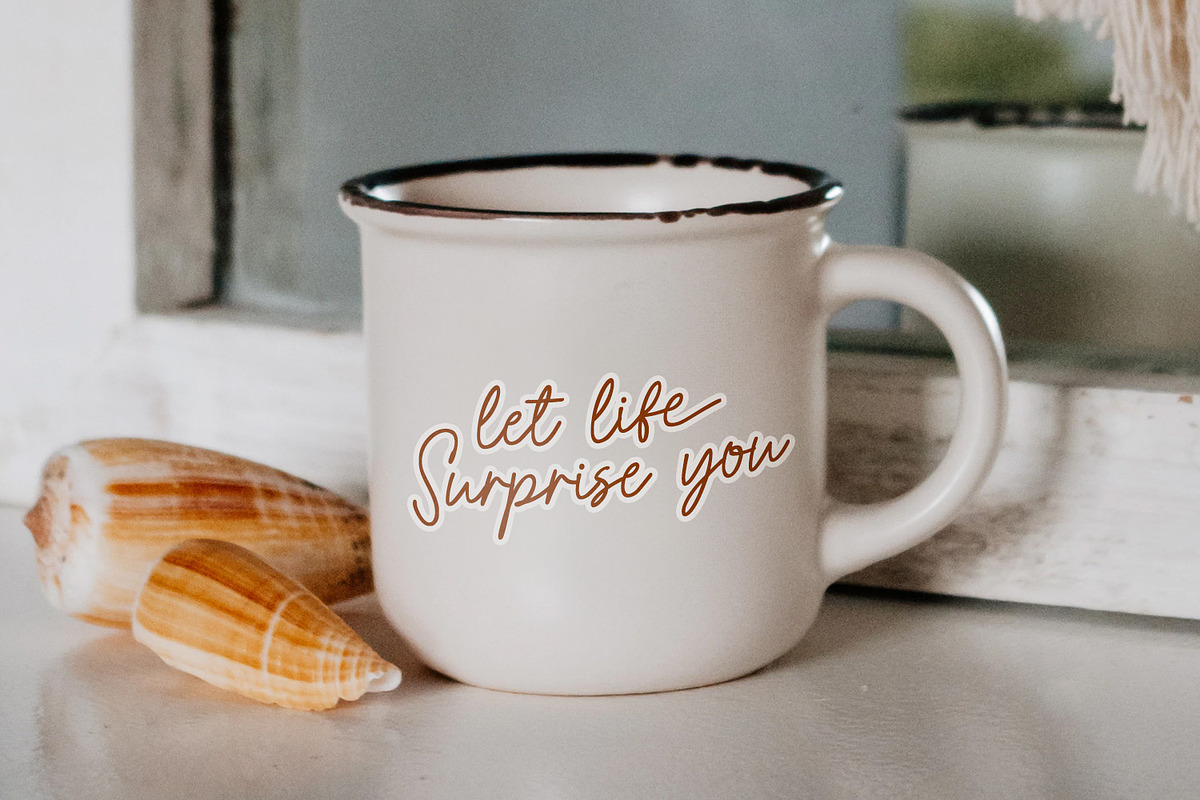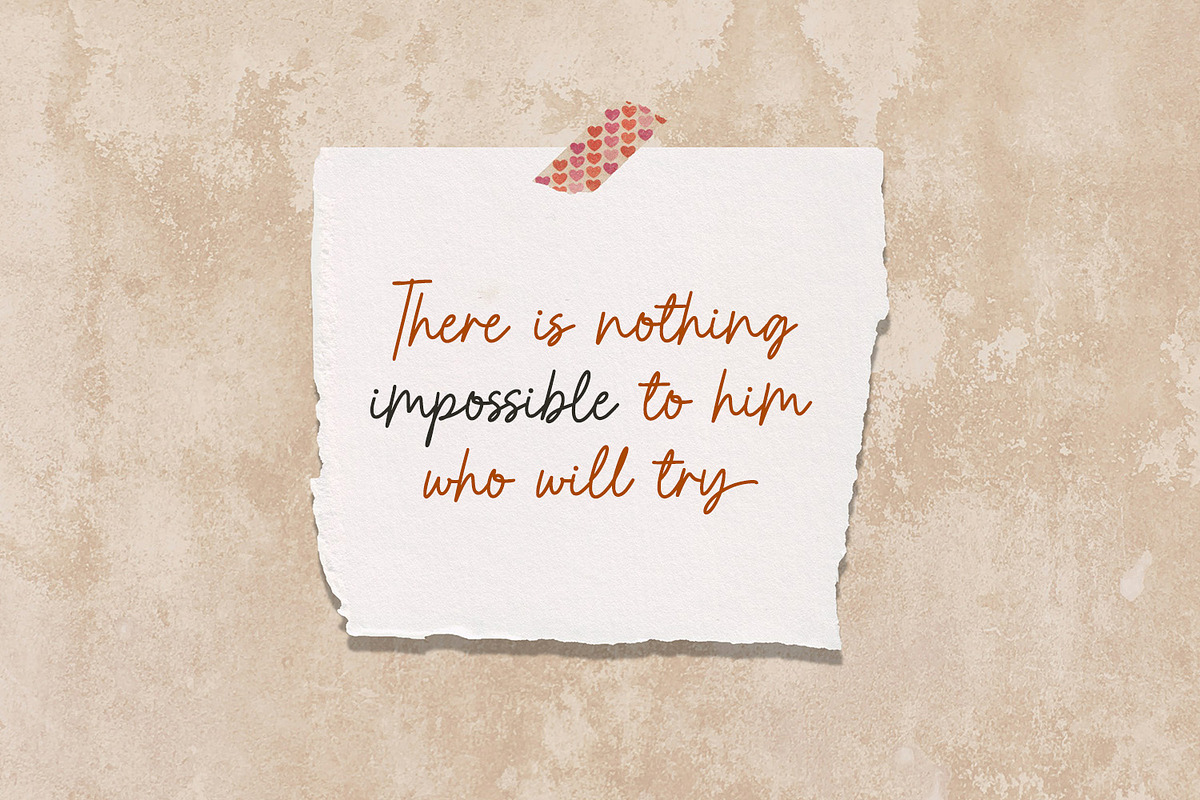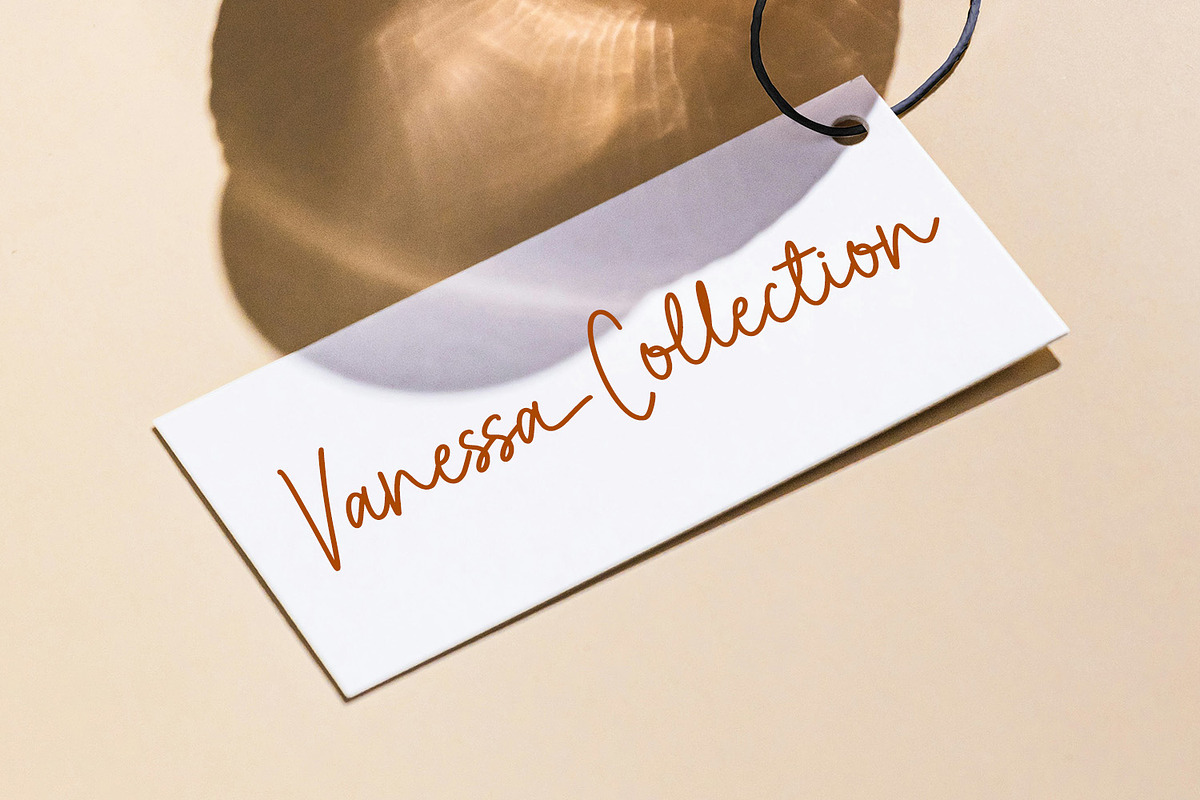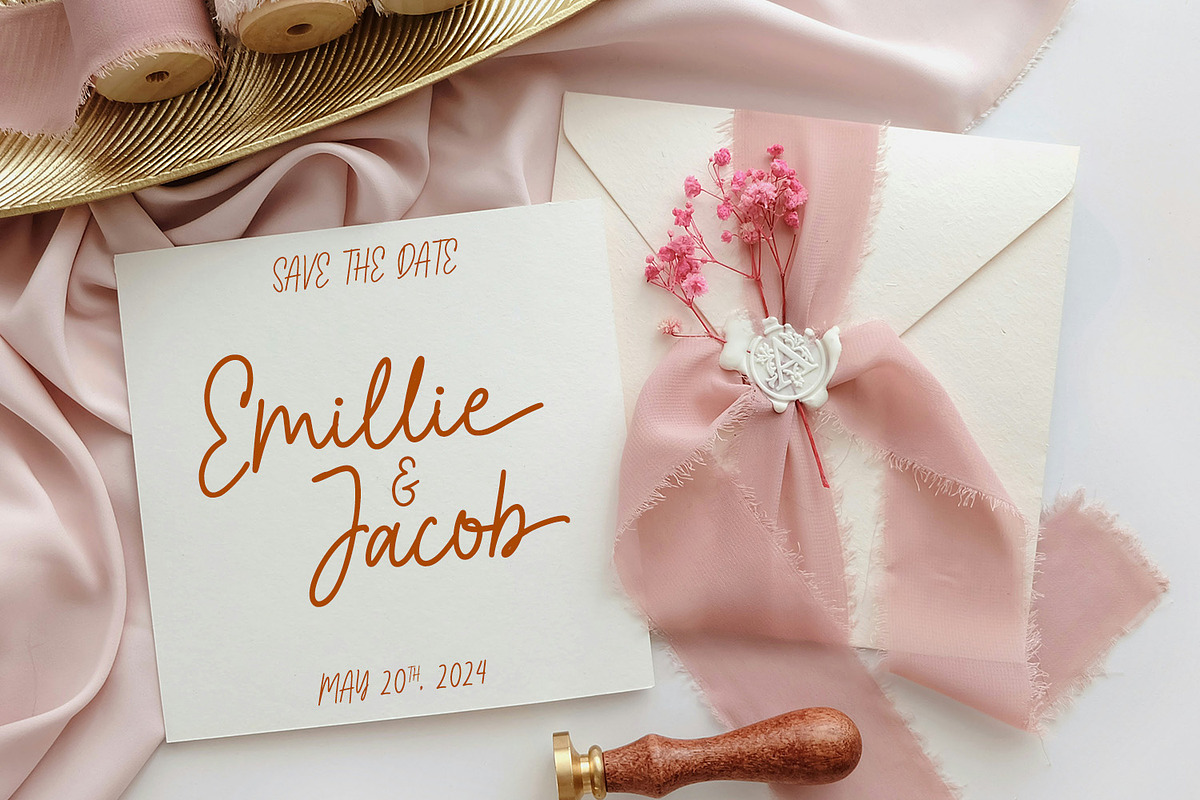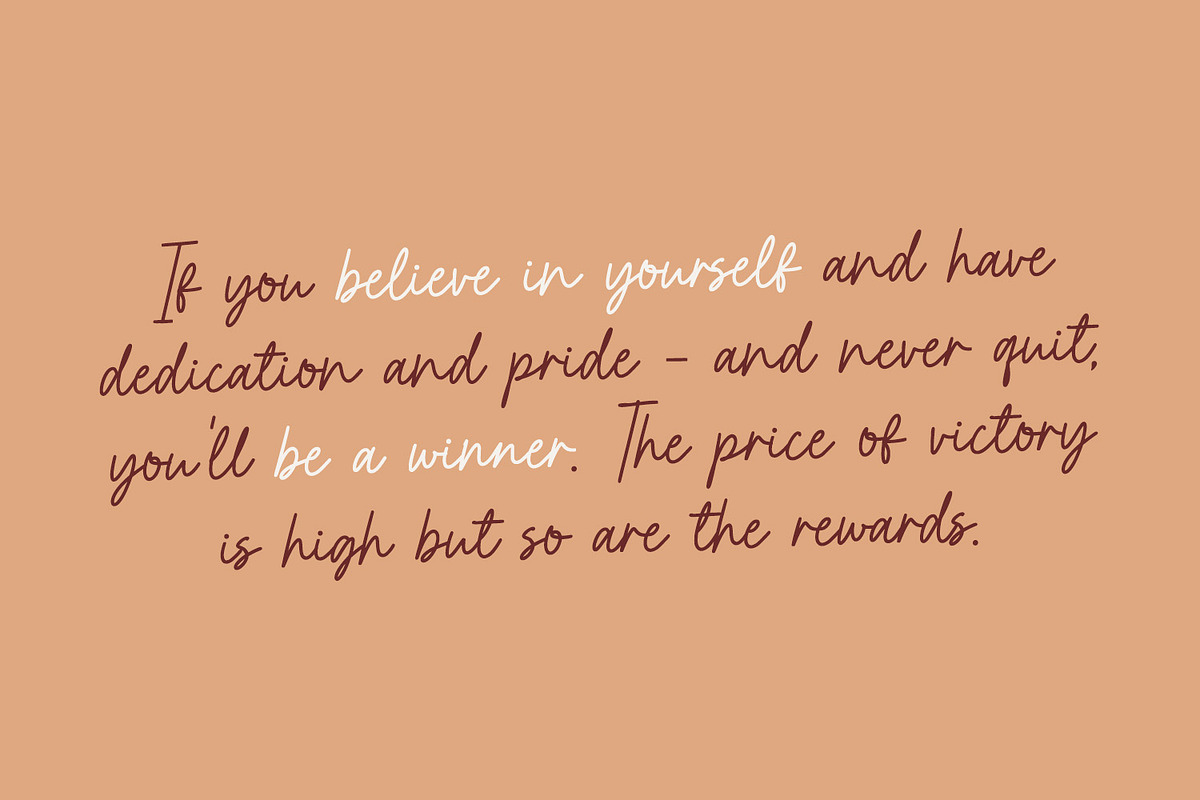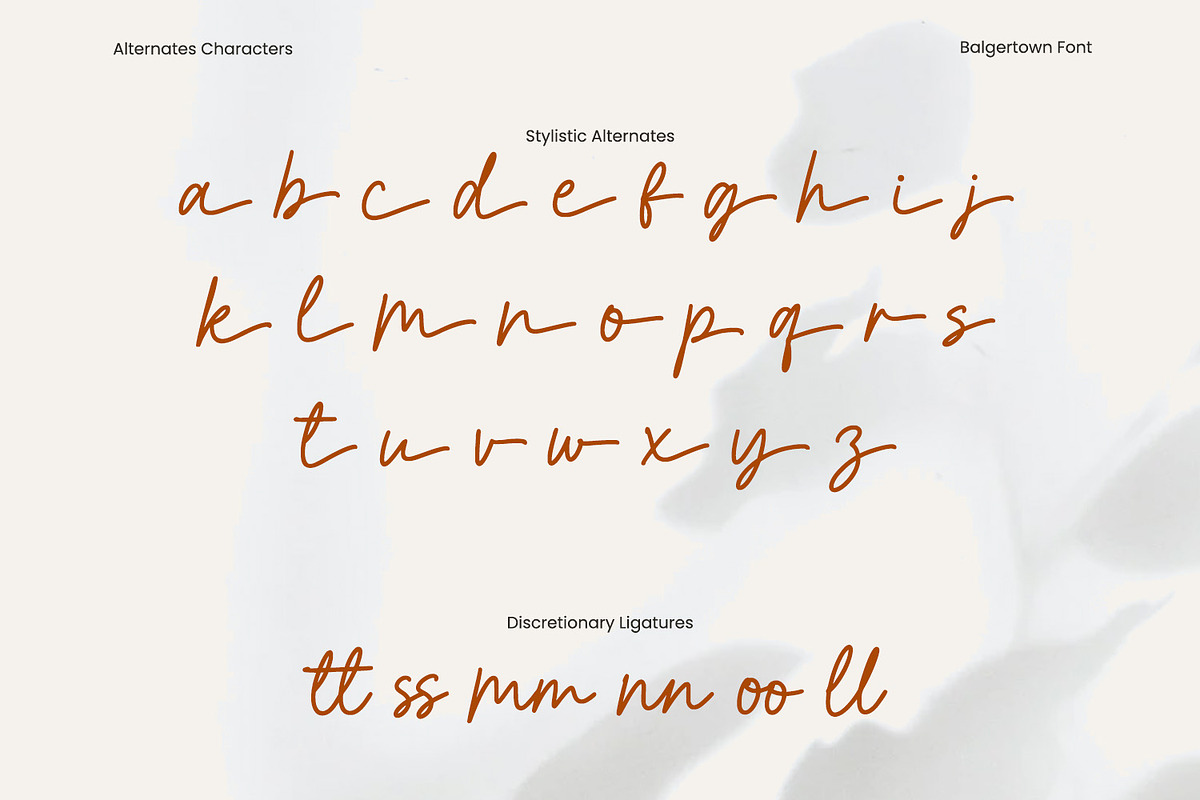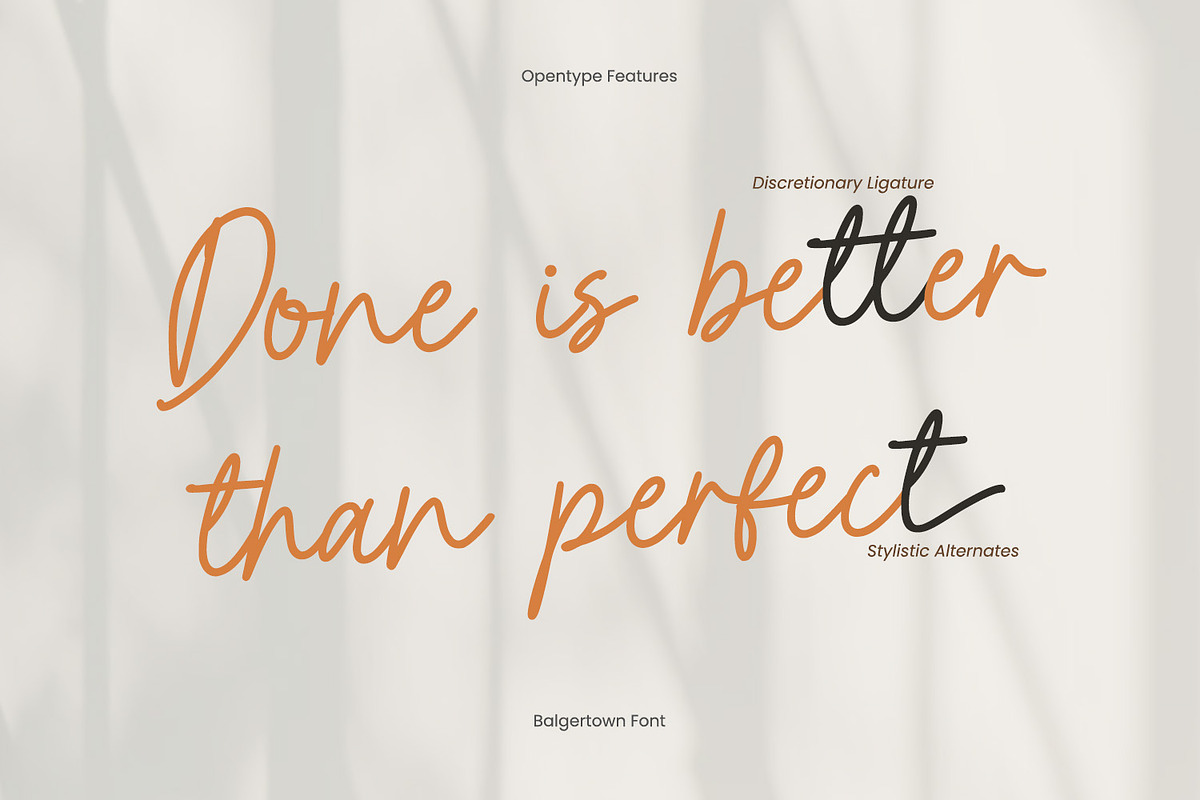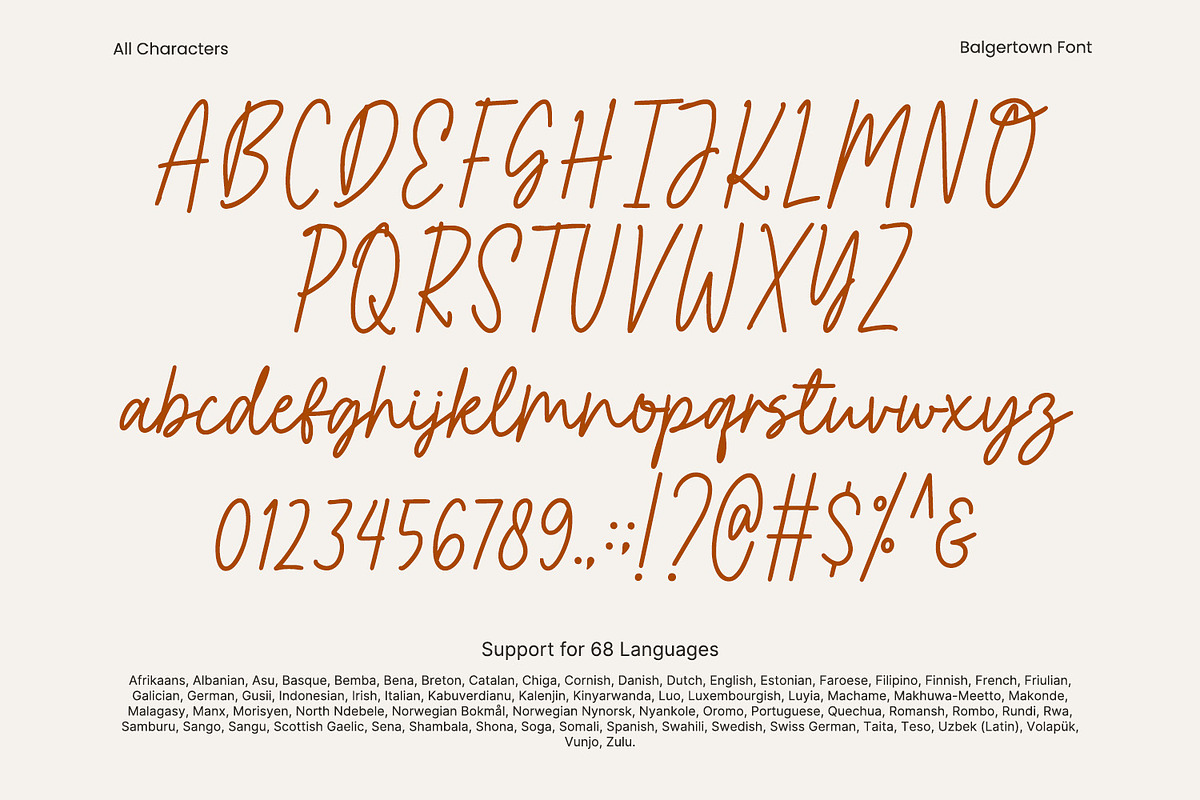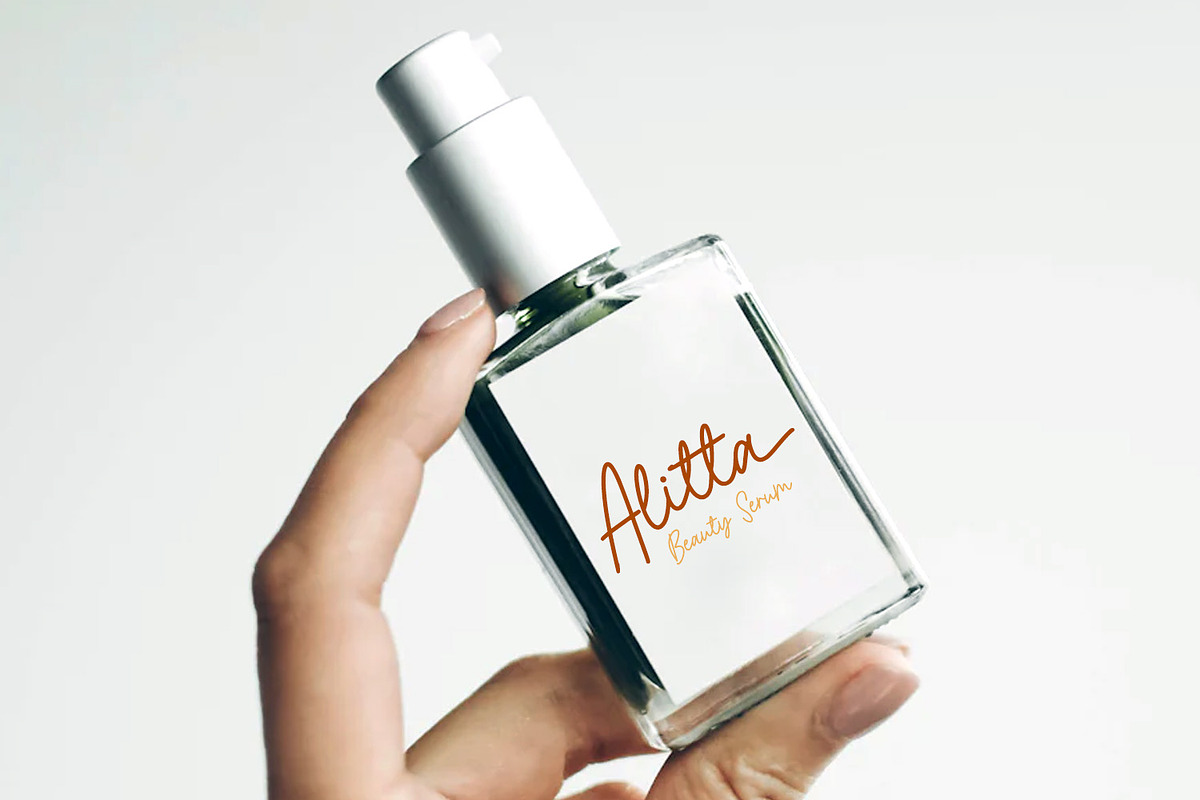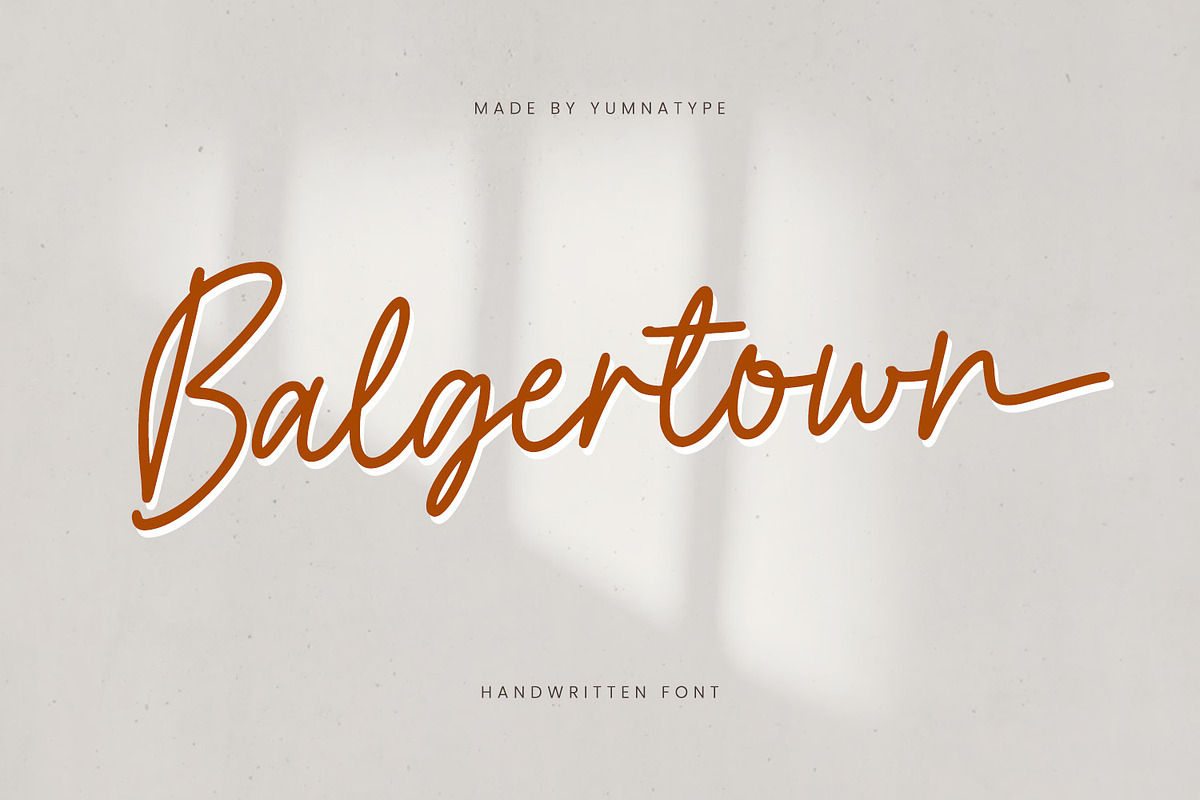
Balgertown
Balgertown is a graceful handwritten font that beautifully captures the essence of personal, connected handwriting. Each letter in Balgertown flows seamlessly into the next, creating a continuous, connected script that exudes fluidity and coherence.
The thin weight of the font ensures a delicate, refined appearance, perfect for designs that seek a subtle yet sophisticated look. What sets Balgertown apart is its low contrast, which maintains a consistent stroke width throughout the letters. In addition, enjoy the features here.
Balgertown fits in headlines, logos, posters, flyers, branding materials, print media, editorial layouts, and many more designs. Find out more ways to use this font by taking a look at the font preview.